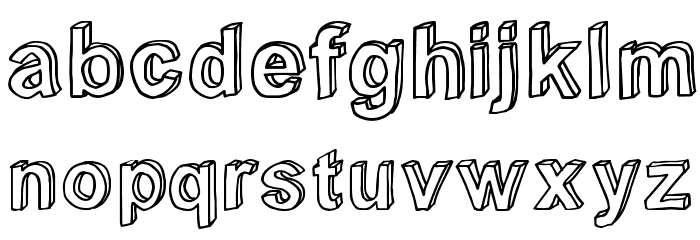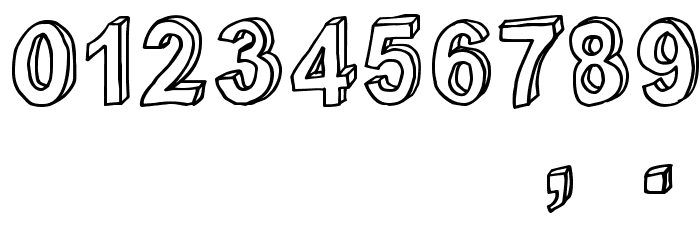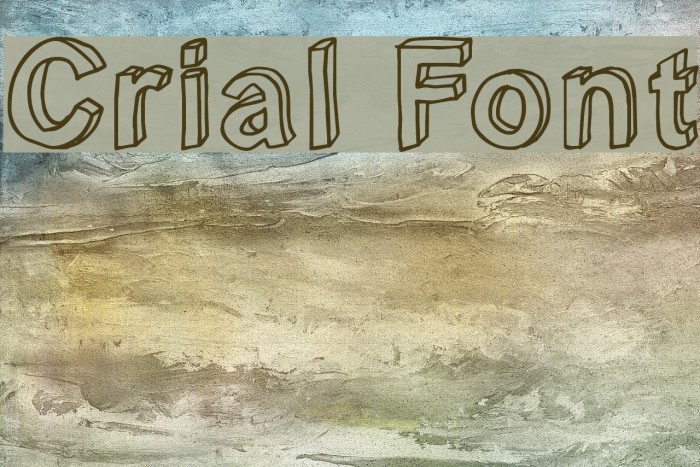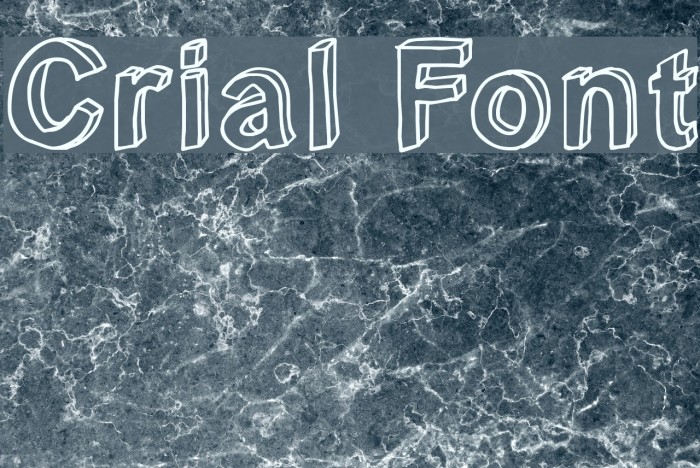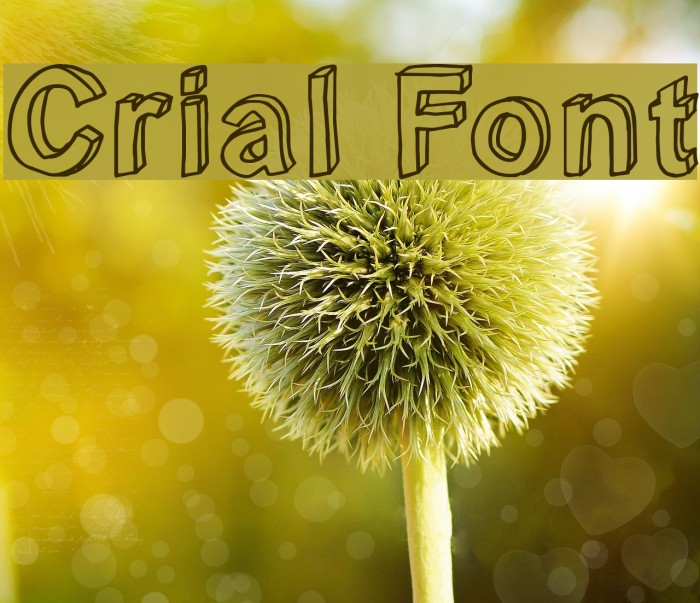
Crial Font
This font features a playful, three-dimensional outline style that gives each character a dynamic and bold appearance. The letters are uppercase and lowercase, with a consistent thickness throughout, creating a cohesive look. The numbers and special characters share the same stylistic elements, ensuring uniformity across all glyphs. The font's design is reminiscent of hand-drawn or comic book styles, with a slightly irregular edge that adds to its charm. The overall aesthetic is both modern and whimsical, making it suitable for projects that require a fun and engaging visual element.
A playful, 3D outline font with a hand-drawn, comic book style.
- Font: Crial
- Proposed Projects: Ideal for children's books, comic strips, playful branding, and creative posters.
- Overall Style: Modern, Whimsical